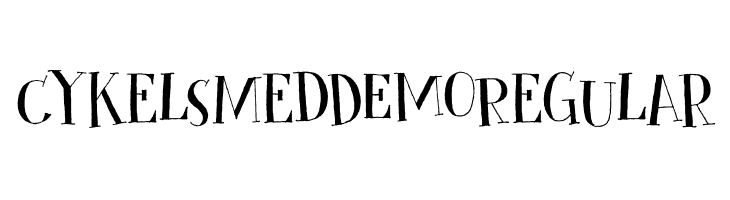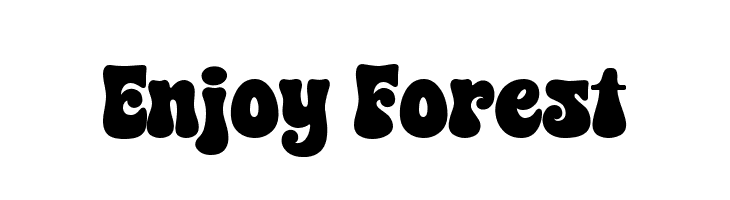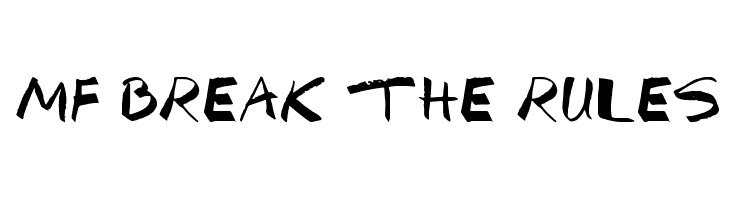
( Fonts by HansCo )
A bold, playful font with thick, rounded, and bubbly characters.
( Fonts by Billy Argel )
A pixelated, retro-style font inspired by early digital displays.
( Fonts by lontong lodeh )
A bold, brushstroke font with an energetic and artistic style.
( Fonts by Din Studio )
A modern, handwritten cursive font with elegant, flowing lines.
( Fonts by Lekearls )
A playful, handwritten-style font with a casual and friendly appearance.
A playful, bold, and rounded font with a whimsical, handwritten style.
( Fonts by Twicolabs Fontdation )
A bold, playful handwritten font with smooth, rounded characters.
( Fonts by Scratchones )
A bold, playful handwritten font with rounded edges and thick strokes.
( Fonts by Eko Bimantara )
A bold, playful font with a 3D effect and cartoonish style.
( Fonts by Letterena Studios )
An elegant script font with fluid, cursive strokes and interconnected letters.